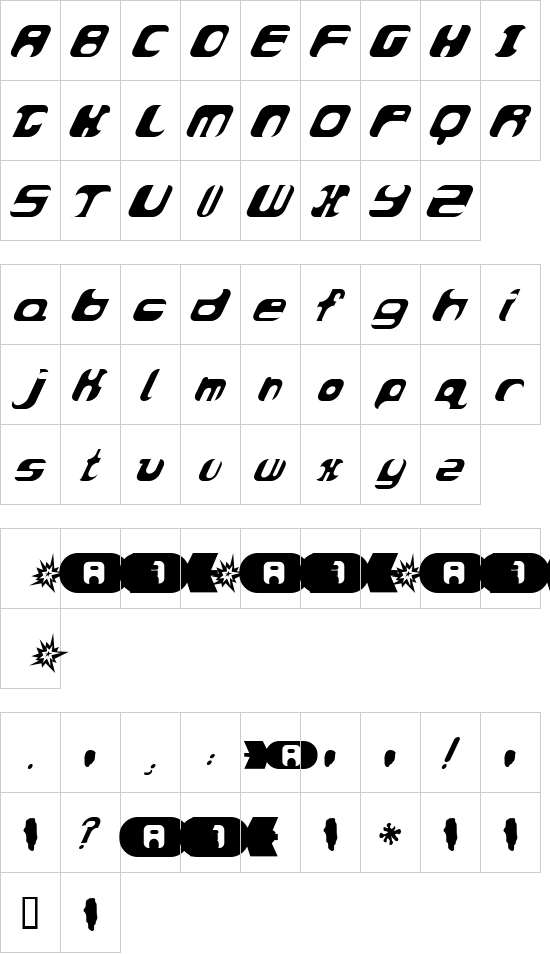
Atombomb is a high-impact display face with loud, explosive letters that feel charged with kinetic energy. The forms are heavy and emphatic, built to shout rather than whisper, and the bold, slightly jagged shapes give headlines a sense of motion and force, as though the words themselves are about to detonate across the page at any second.
Use it for action posters, comic book titles, gaming logos, and bold headlines that need to land hard and fast. Atombomb is free to download as a TrueType file, and you can preview it with your own text to see how much punch it brings to your wording.